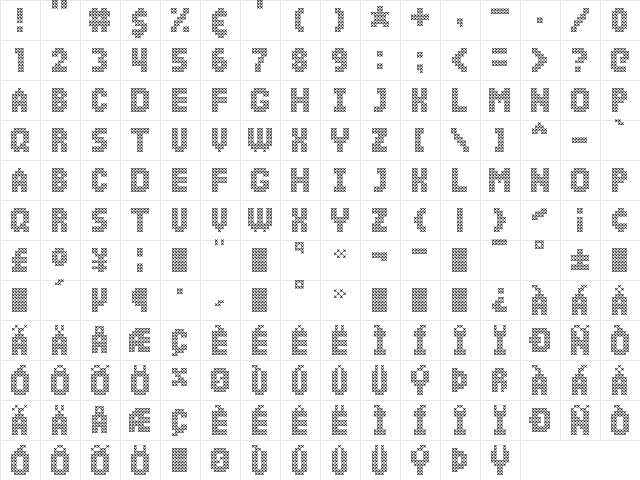
Simple Stitch Regular
| Designer | GameDevDan |
Design Context for Simple Stitch Typeface
Simple Stitch is a composed and adaptable typeface that performs quietly and consistently across a wide range of design contexts.
Pro Tip: Pair Simple Stitch with a font of contrasting weight or personality to build a more expressive typographic hierarchy.